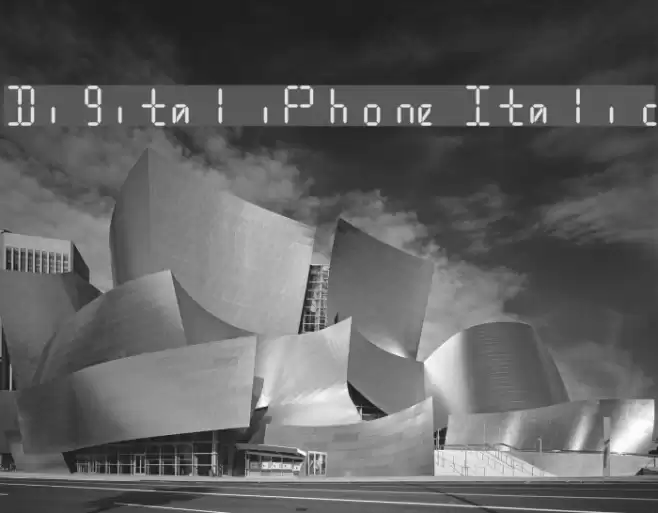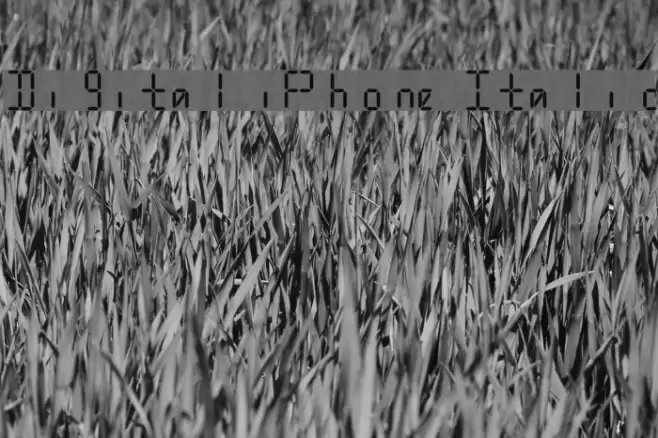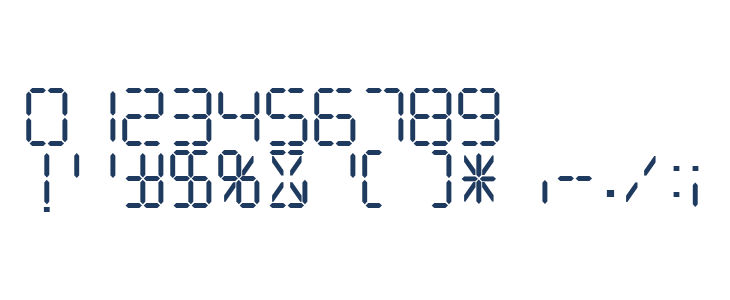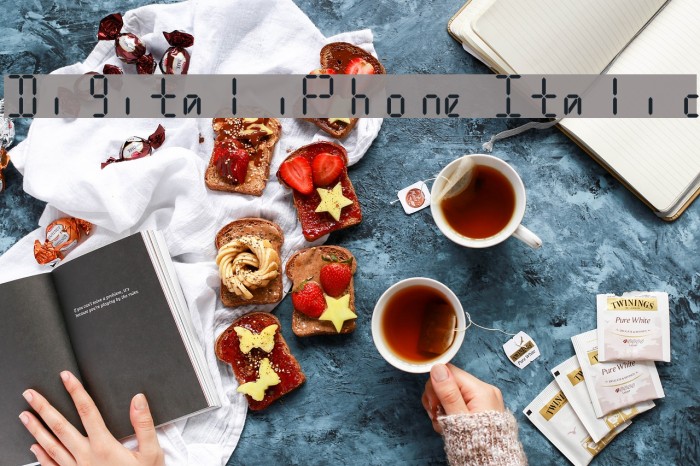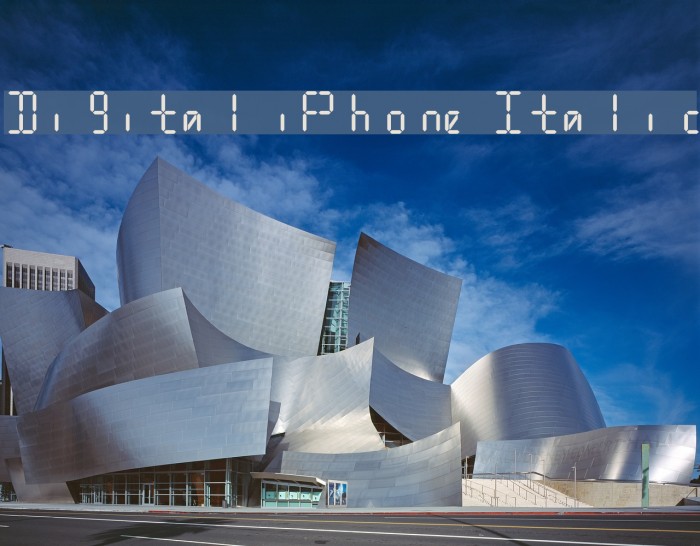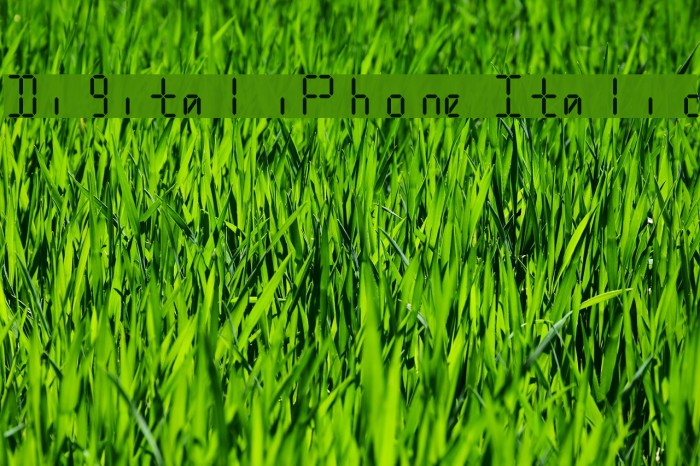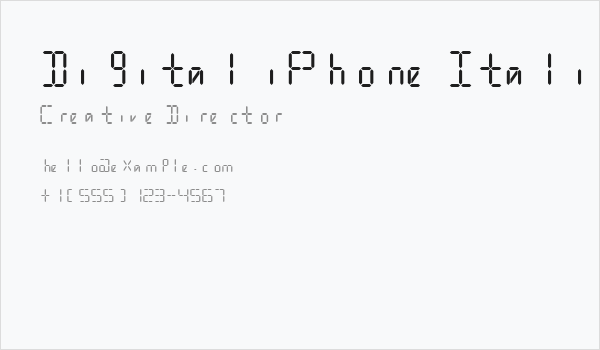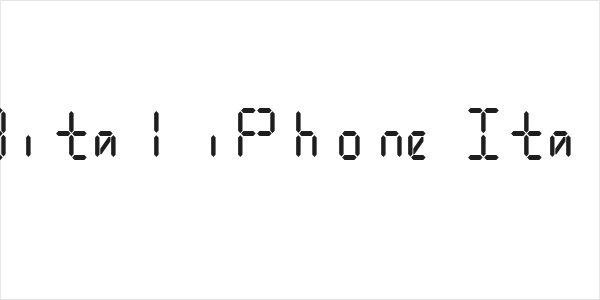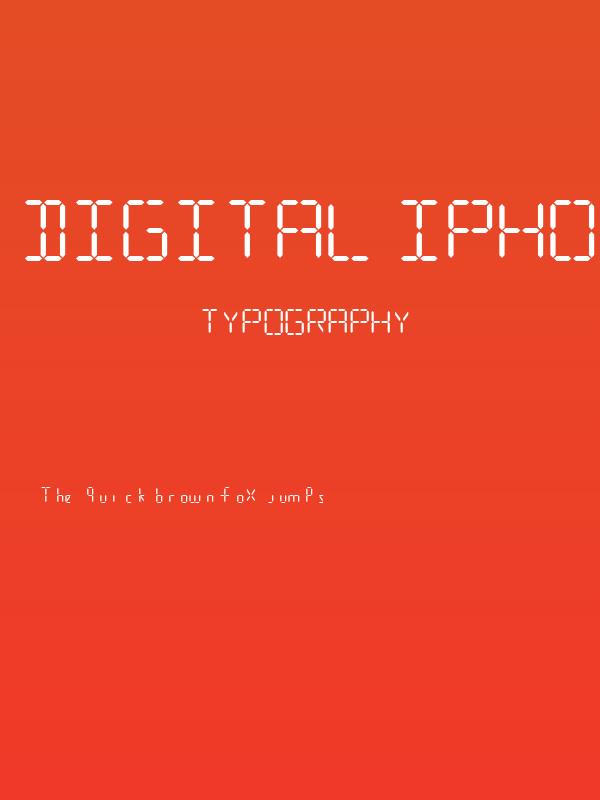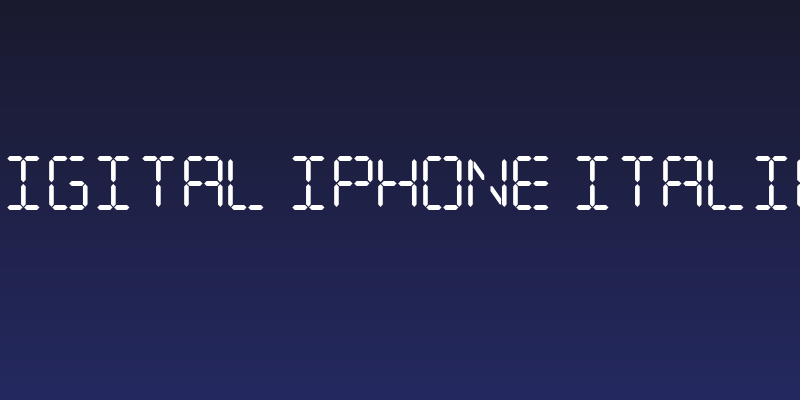
Digital iPhone Italic Font
Digital iPhone Italic Description
This font features a digital, segmented style reminiscent of classic LED displays. Each character is constructed from a series of rectangular segments, creating a geometric and technical appearance. The uppercase and lowercase letters maintain a consistent height, with the lowercase slightly smaller in width. Numbers and special characters follow the same segmented design, ensuring uniformity across all glyphs. The font's design is highly legible, making it ideal for digital interfaces or projects that require a technological aesthetic. Its structured form and clear lines give it a modern and futuristic feel.
A segmented, digital-style font inspired by classic LED displays from Uncategorized fonts.
- Proposed Projects: Ideal for digital interfaces, tech-themed designs, electronic displays, and futuristic branding.
- Use Case: Headlines, Digital displays, Tech interfaces